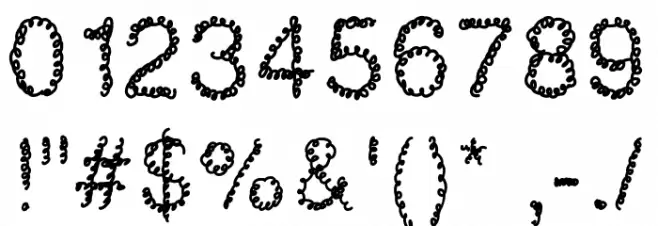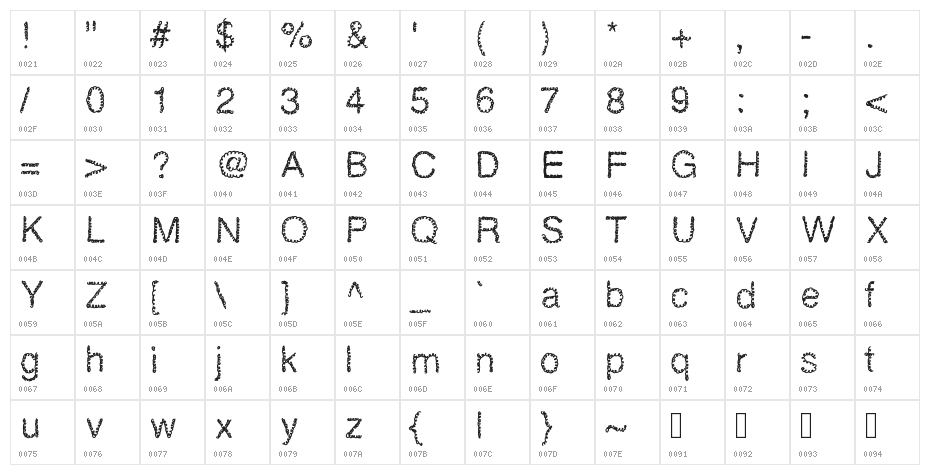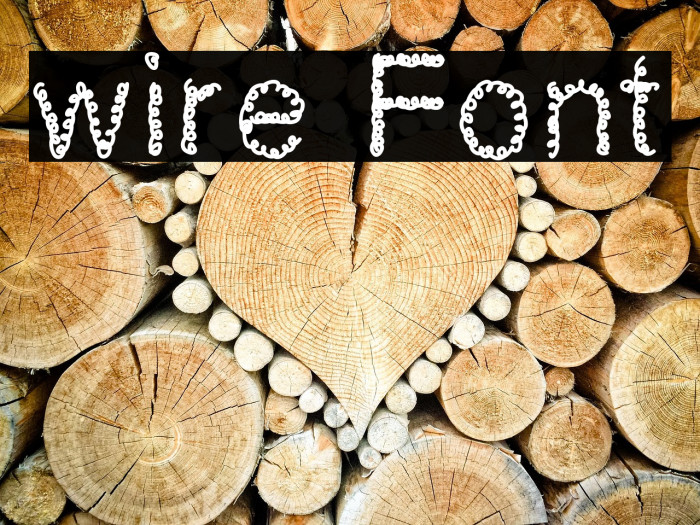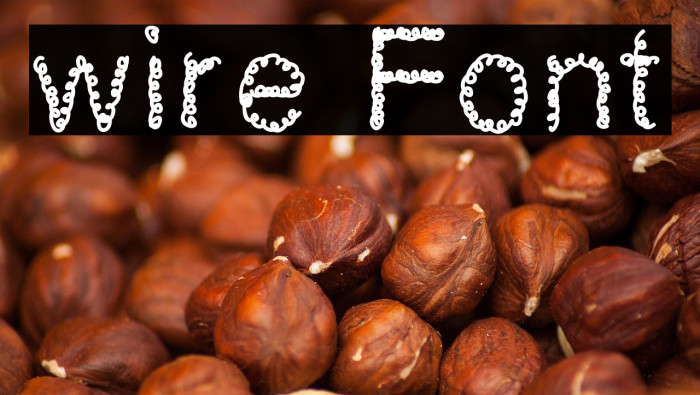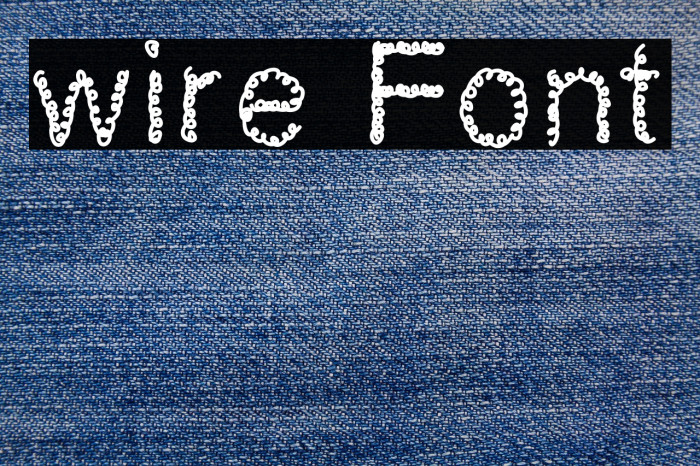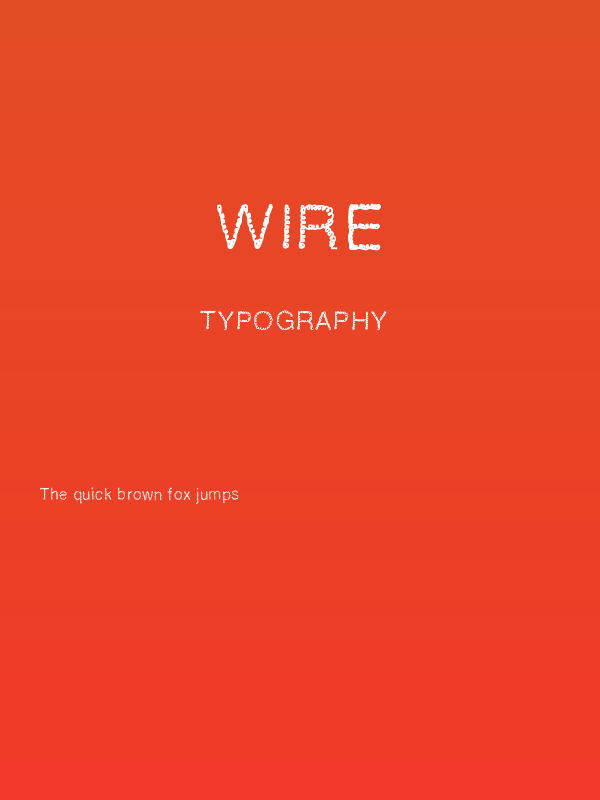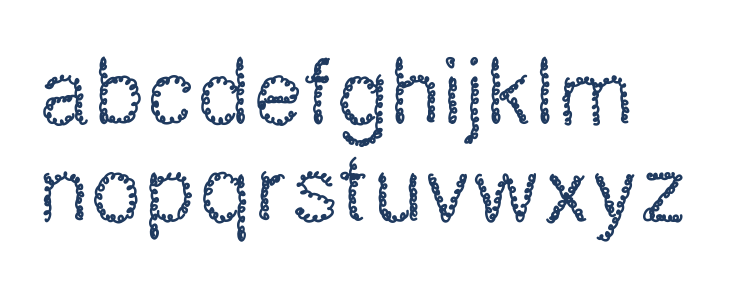
wire Font
wire Description
This font features a unique and playful design, characterized by a series of interconnected loops and curls that form each letter and number. The whimsical style gives it a hand-drawn appearance, with each character appearing as if it is made from a continuous wire or string. The font maintains a consistent thickness throughout, contributing to its decorative and artistic feel. It is highly legible despite its intricate design, making it suitable for creative projects that require a touch of fun and originality. The special characters are equally ornate, maintaining the cohesive look of the entire set.